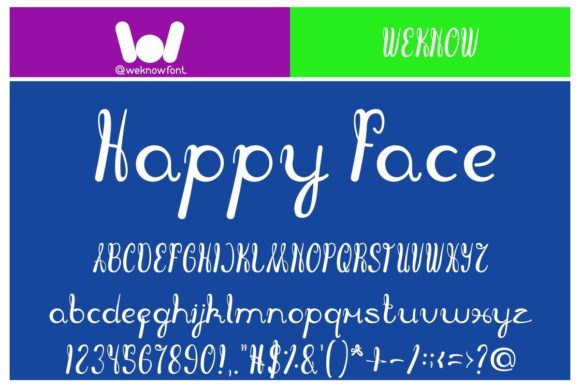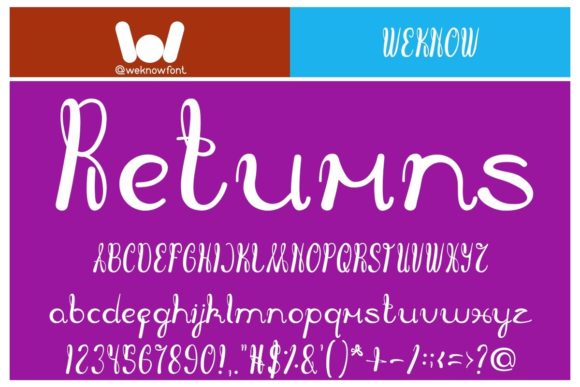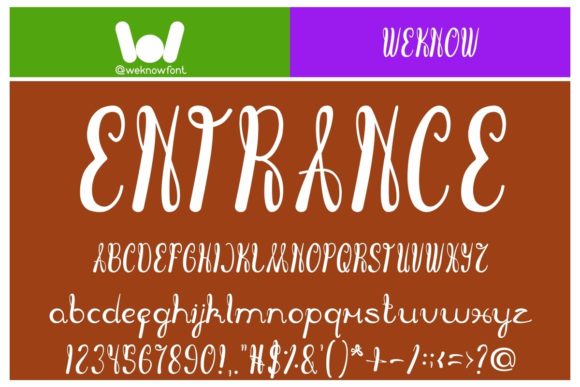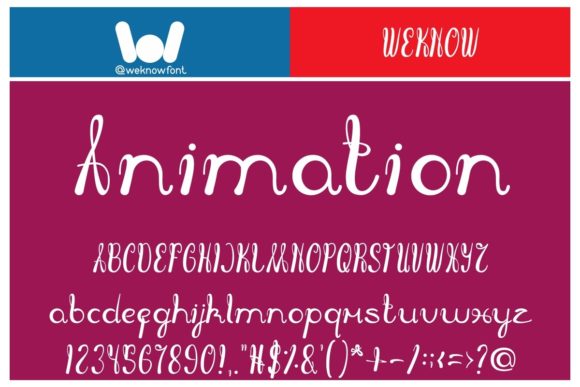
Introduction to Ragatnia Font
As a designer, there’s nothing quite like the thrill of discovering a new font that perfectly captures the essence of your creative project. For me, it was the moment I stumbled upon the Ragatnia Font – a beautiful, elegant script font that left me breathless. Its intricate strokes and flowing curves seemed to dance across the page, whispering romance and sophistication in every line.
I knew right then that I had to share this treasure with fellow designers, and so, here’s a closer look at the Ragatnia Font – a design resource that’s sure to elevate your high-quality projects to new heights. Whether you’re crafting love letters, designing wedding invitations, or simply looking for a unique touch for your next creative venture, this lovely font is sure to leave a lasting impression.
Key Features of Ragatnia Font
- Ragatnia Font offers a unique and stylish design perfect for creative projects that require a touch of elegance and sophistication.
- The font is available in a single weight, providing a clean and consistent look across various design applications.
- Ragatnia Font is an excellent design resource for anyone looking to add a touch of creativity to their projects, from logos to typography.
Honest Review: Ragatnia Font
As a designer, I’m always on the lookout for high-quality design resources that can elevate my creative projects. Recently, I stumbled upon the Ragatnia Font, and I’m excited to share my honest review.
- ✨ Beautiful, elegant design that’s perfect for luxury brands and high-end projects.
- ✨ High-quality glyphs and characters that ensure crisp and clear readability.
- ⚠️ Limited language support, which might be a concern for designers working on multilingual projects.
- ⚠️ Not suitable for bold, playful, or edgy designs, as it’s more geared towards sophisticated and elegant projects.
Overall, I’m impressed with the Ragatnia Font’s quality and design. It’s a great addition to any designer’s toolkit, especially for high-end or luxury creative projects. However, it’s essential to consider its limitations before using it for more complex or playful designs.
Ragatnia Font is ideal for:
- Creating high-quality logos and branding materials
- Designing social media graphics and presentations
- Developing typography-based creative projects
To get the most out of Ragatnia Font, experiment with different font sizes, colors, and styles. Combine it with other design elements to create unique and eye-catching designs.